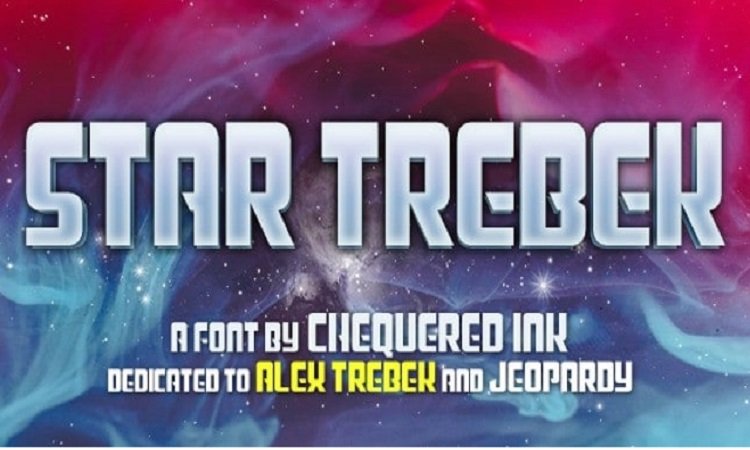
Star Trebek Display Font
Thanks for checking out Star Trebek Display Font, A multipurpose display typeface with design choices and a combination between the medieval times and urban street wear themes.
perfect for headlines, logotypes, signs, posters, greeting card, letterhead, t-shirt, and many more.